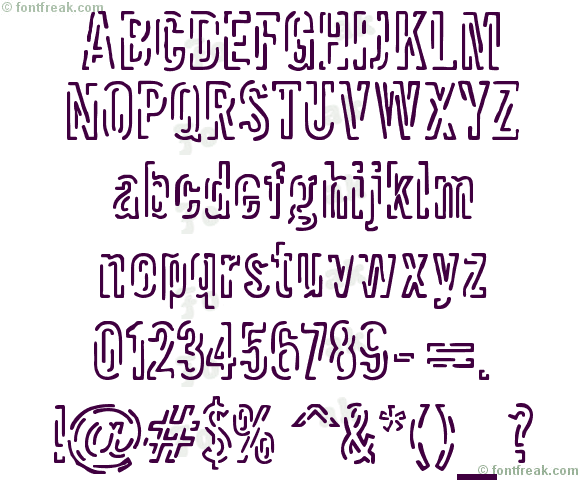
Packet
The Packet font, designed by Surface Design Group, is a unique display typeface that captures attention with its playful and whimsical characteristics. This shareware font, which has been captivating designers since its copyright in 1997, features a bold and slightly irregular stroke weight that gives it a hand-crafted feel. The letters exhibit a moderate contrast in thickness, contributing to a lively and artistic appearance. Its spacing is well-balanced, ensuring readability while adding to its distinctive charm.
Packet is particularly suited for a variety of creative applications. It shines in contexts such as vibrant movie posters, where its playful nature can draw the eye and convey a sense of fun. Wedding invitations also benefit from this font's unique flair, lending a personal touch that stands out among traditional typefaces. Additionally, it's an excellent choice for restaurant menus seeking to create an inviting atmosphere, as well as for branding projects that aim to express a casual yet memorable identity. Graphic designers, small business owners, and content creators will find this font an essential tool in their typography toolkit.
What truly sets the Packet font apart is its ability to infuse personality into designs without compromising legibility. Its distinctive style makes it a go-to choice for projects that require a touch of creativity and uniqueness. Whether you are designing for print or digital mediums, the Packet font free download offers an accessible way to elevate your visual content. Embrace the playful spirit of Packet and allow your designs to stand out with this exceptional typeface that brings both character and charm to any project.